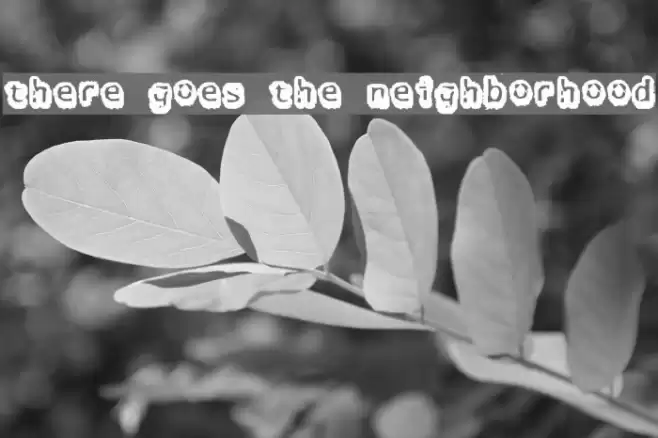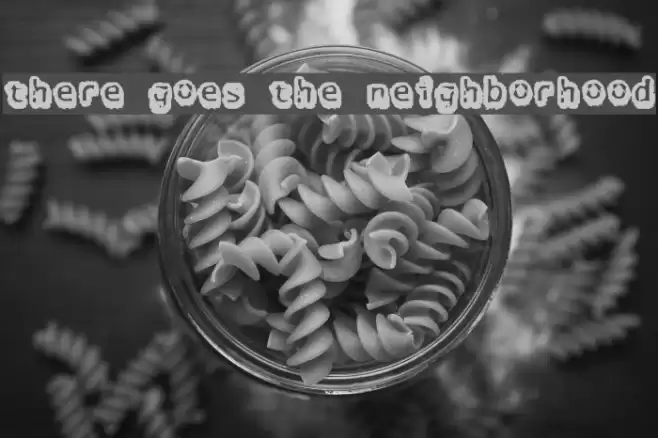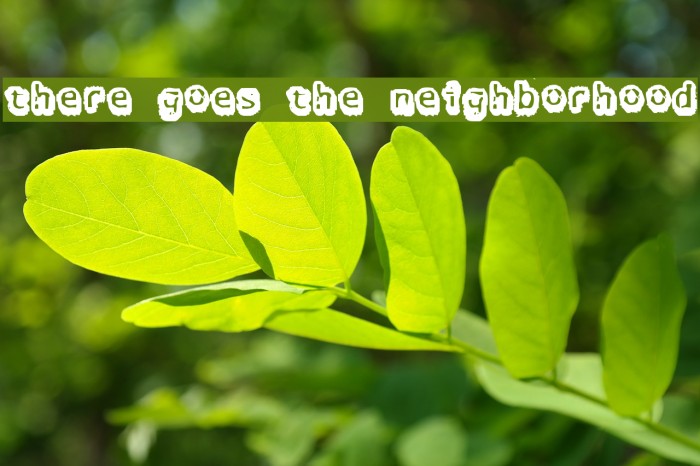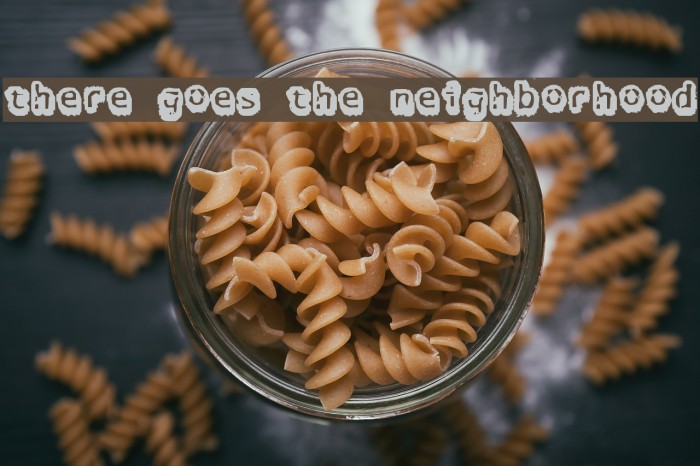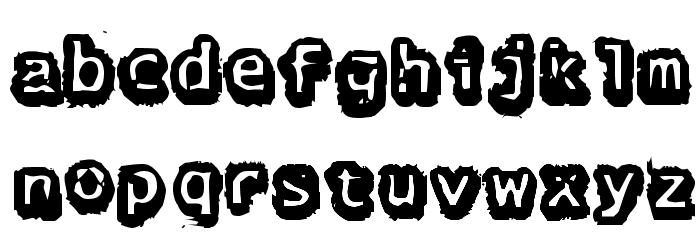
there goes the neighborhood Font
there goes the neighborhood Description
This font features a bold, distressed style with a rugged, textured appearance. The characters have a rough, uneven edge that gives them a grunge-like aesthetic, reminiscent of urban or graffiti art. The uppercase and lowercase letters maintain a consistent thickness, creating a cohesive look across the alphabet. The numbers and special characters follow the same design principles, ensuring uniformity throughout. This font's unique style makes it stand out, ideal for projects that require a bold statement or an edgy, artistic touch.
A bold, distressed font with a rugged, textured appearance from Distorted Eroded fonts.
- Proposed Projects: Ideal for album covers, posters, streetwear branding, or any project needing an edgy, urban aesthetic.
- Overall Style: Grunge, Urban, Artistic